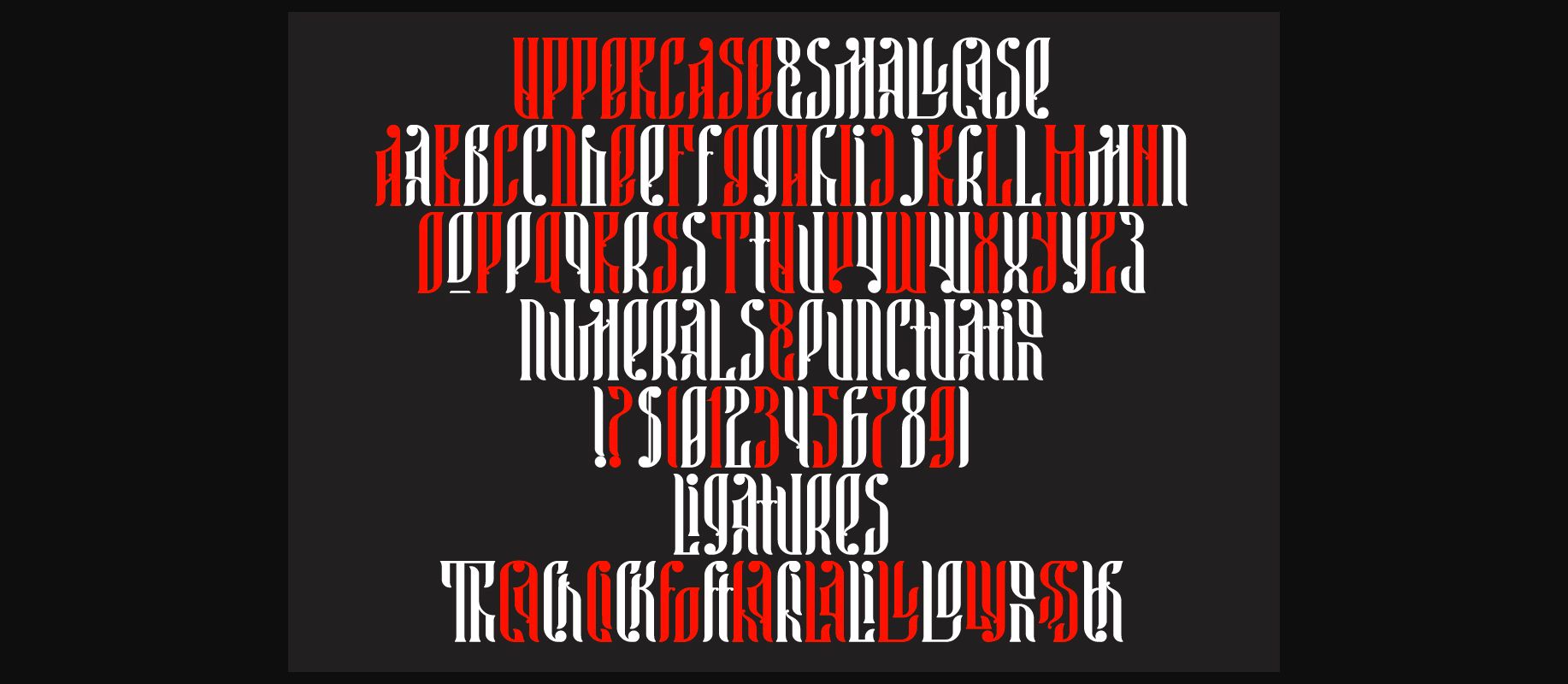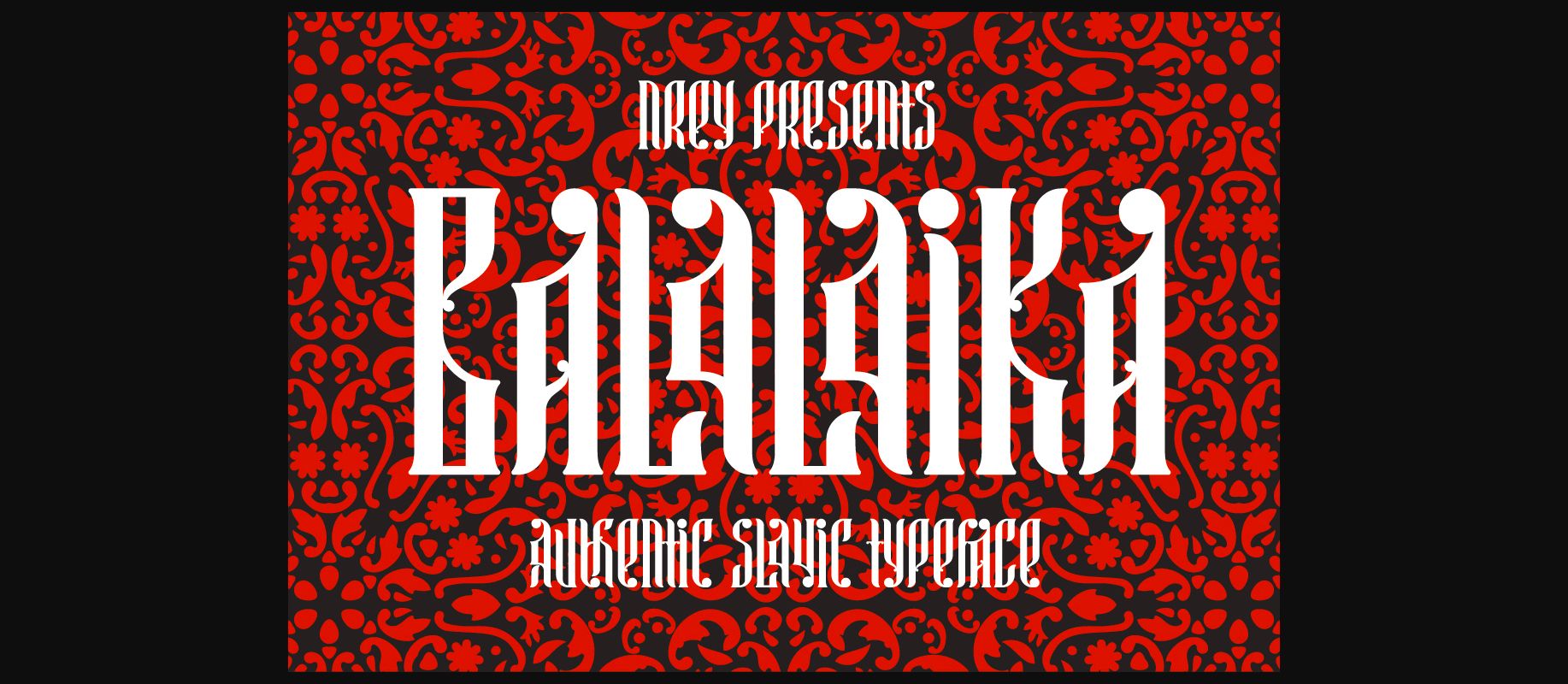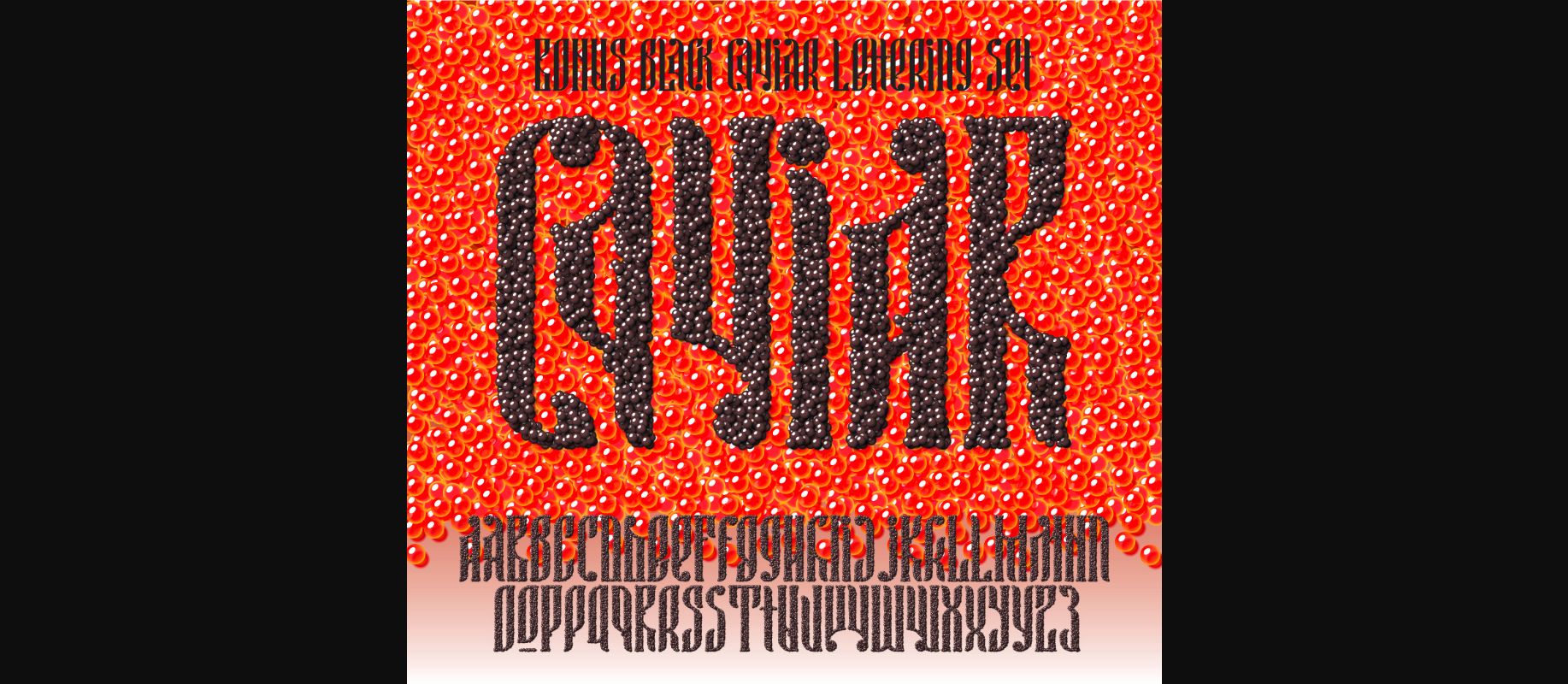
Balalaika Font
About Balalaika Font
Balalaika is a decorative display font.
It features ethnic Slavonic style typography, combined with a modern style. It will add a very classic touch to your designs.
It works well with normal sized text as well as large headlines.